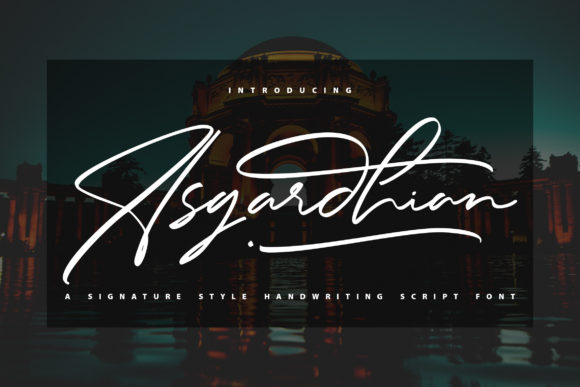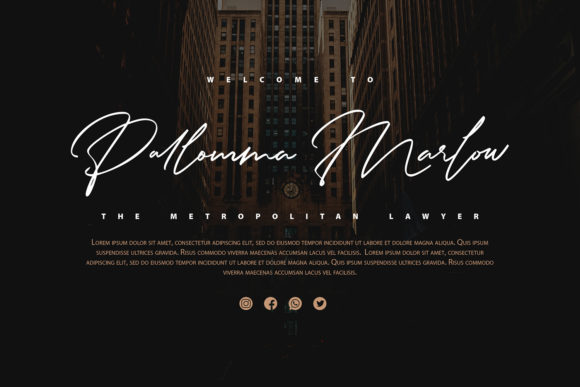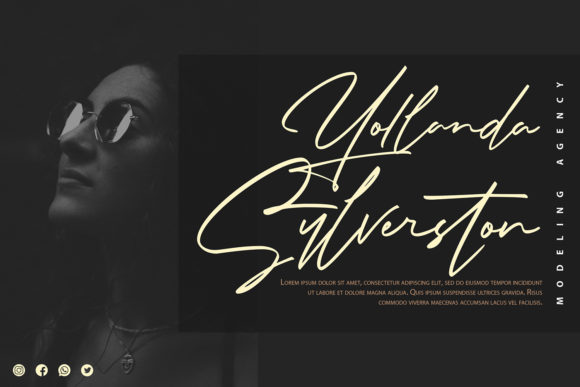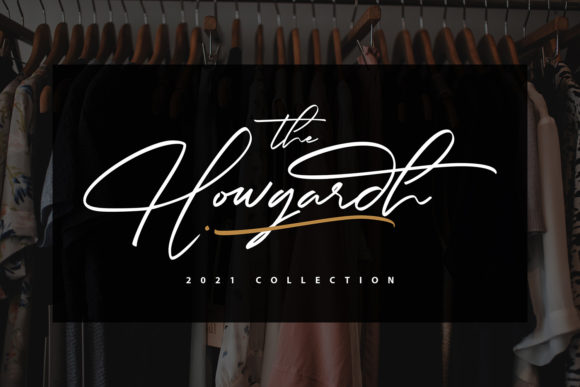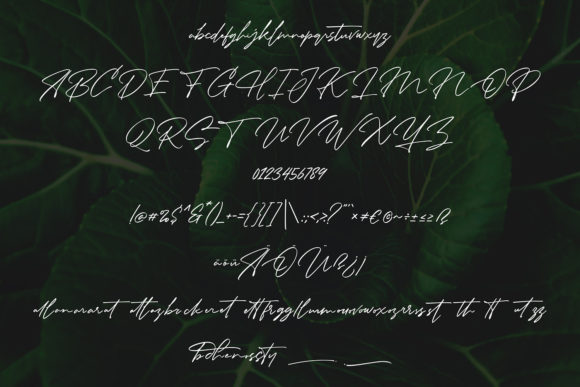
Asgardhian Font
About Asgardhian Font
Asgardhian is a gorgeous and stylish handwritten font, crafted to give your headlines and logotype projects a lovely touch. This font is PUA encoded which means you can access all glyphs and swashes with ease!